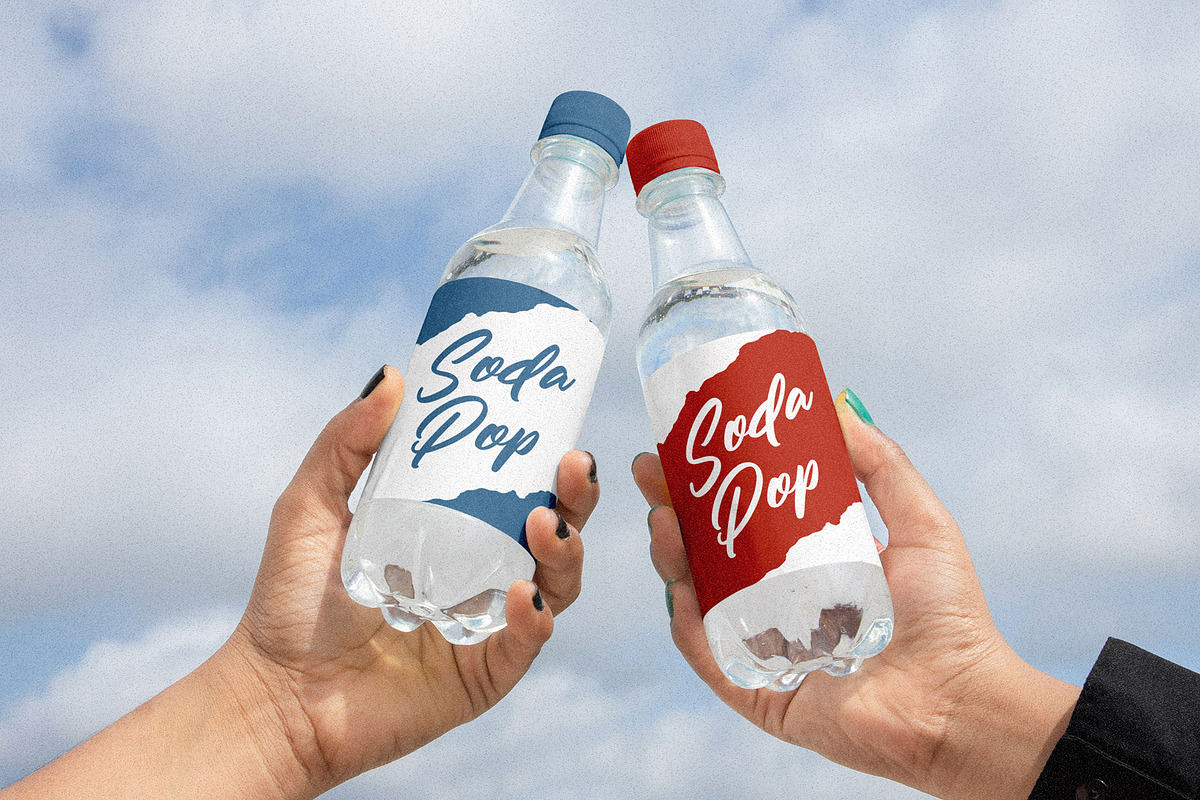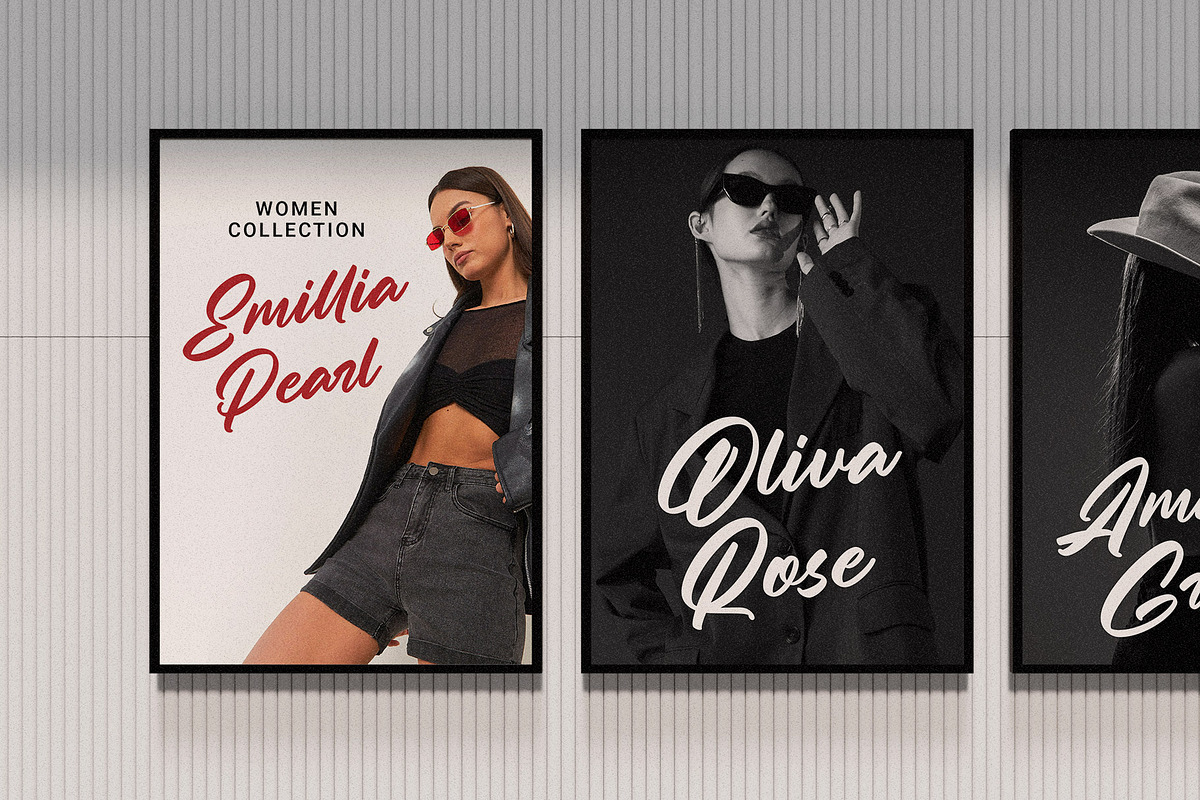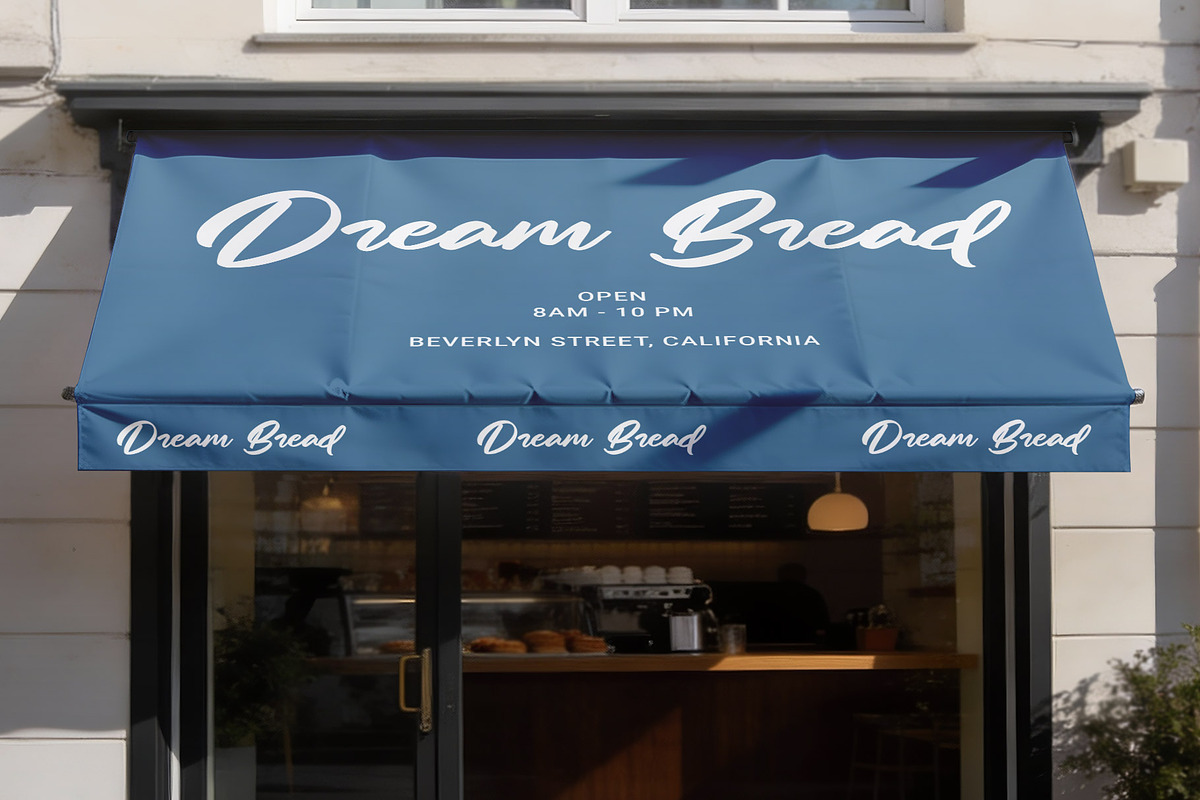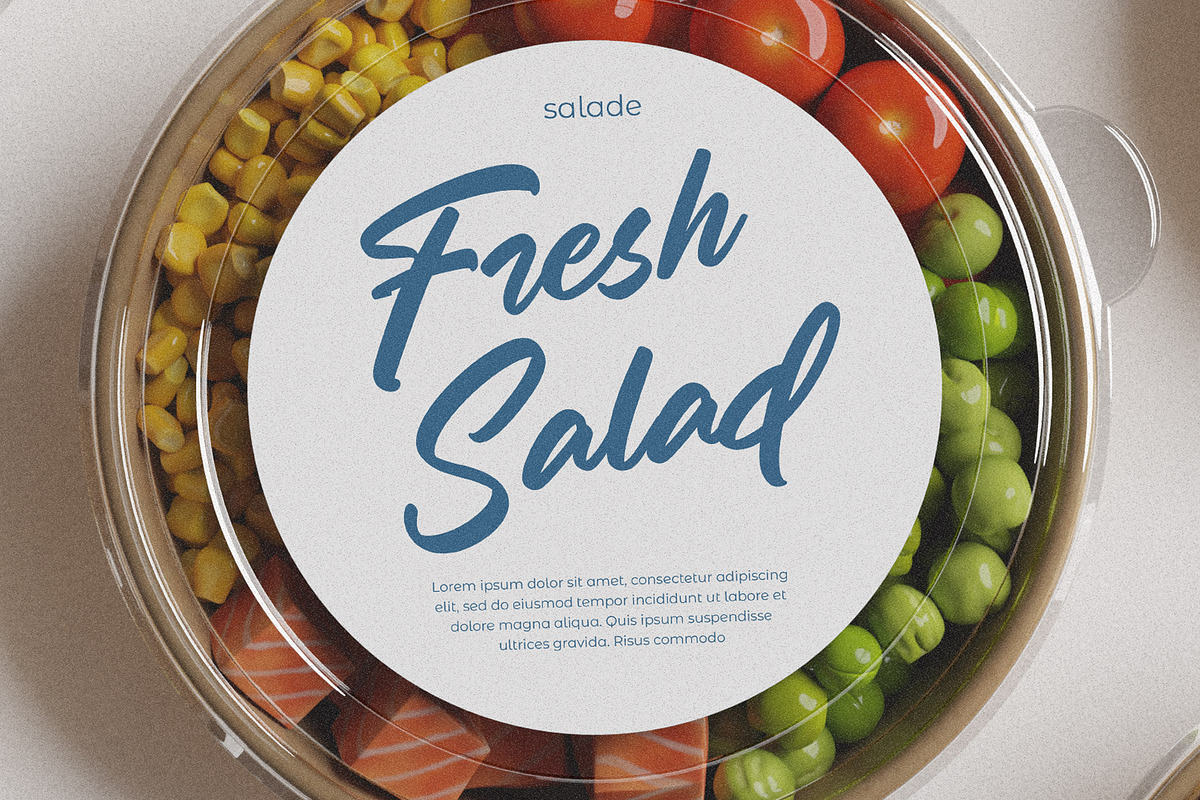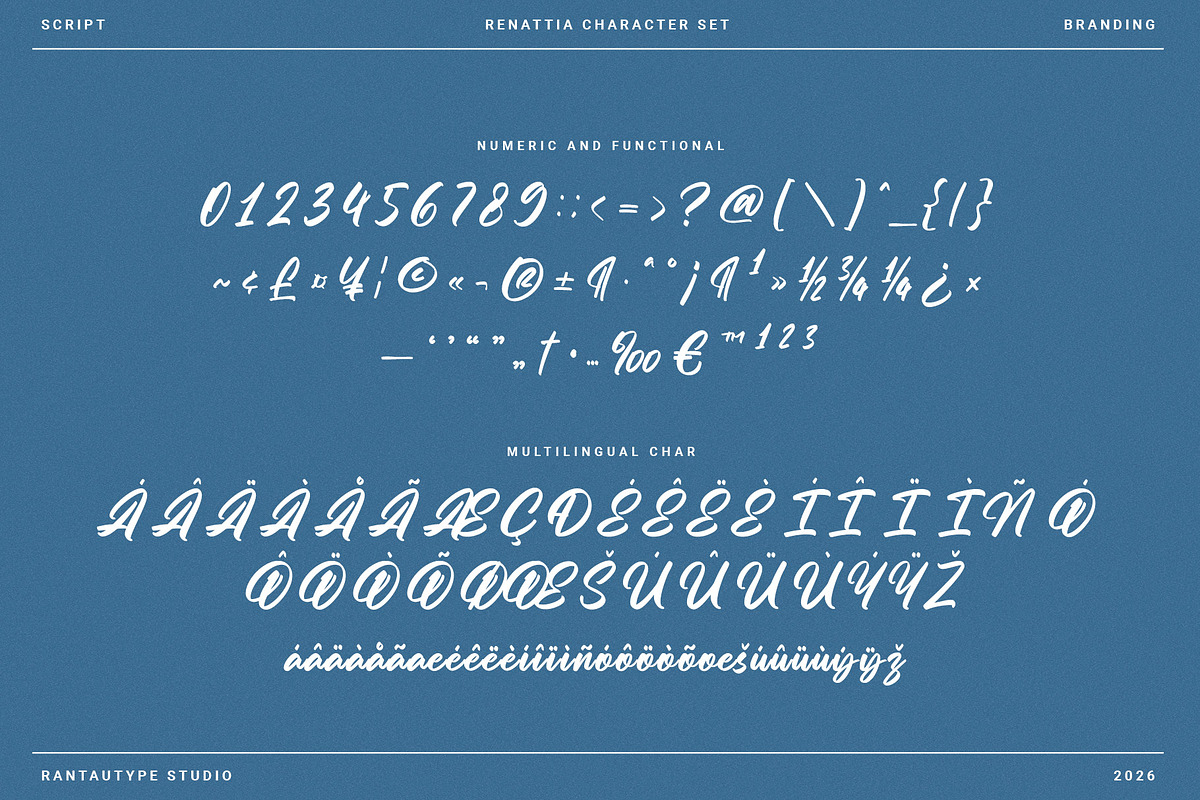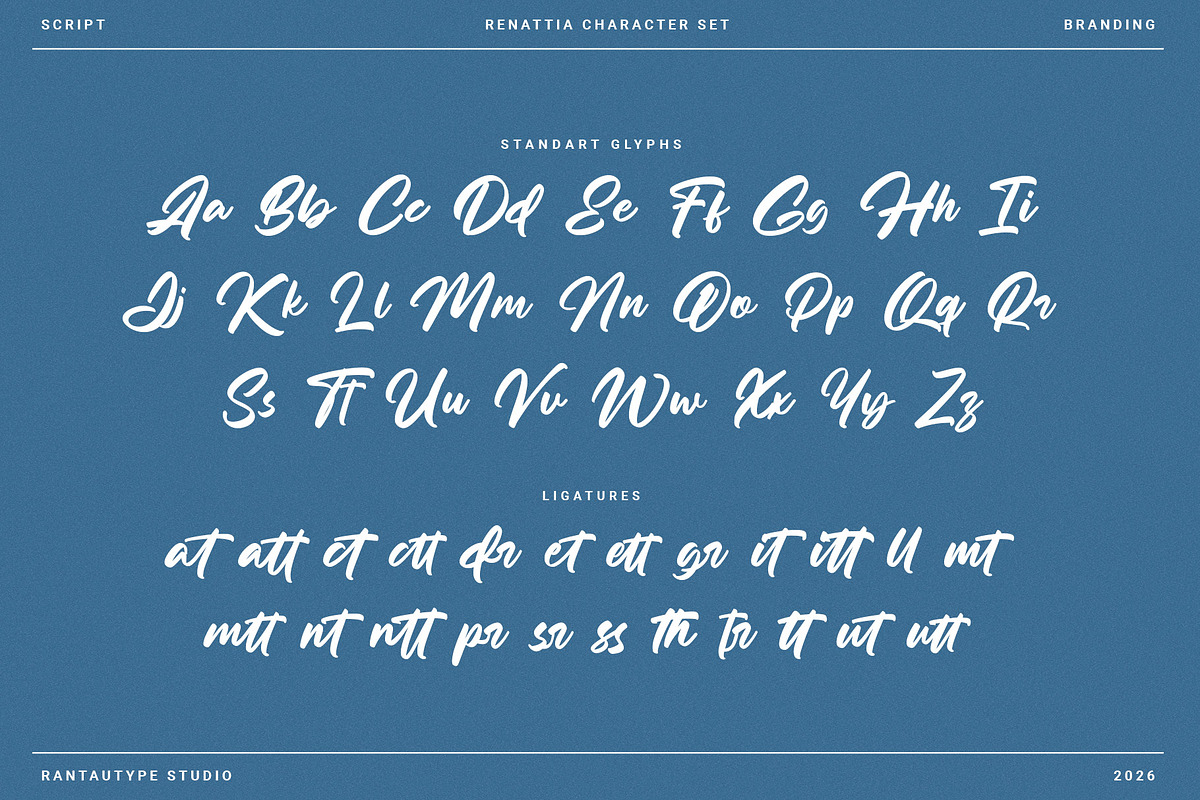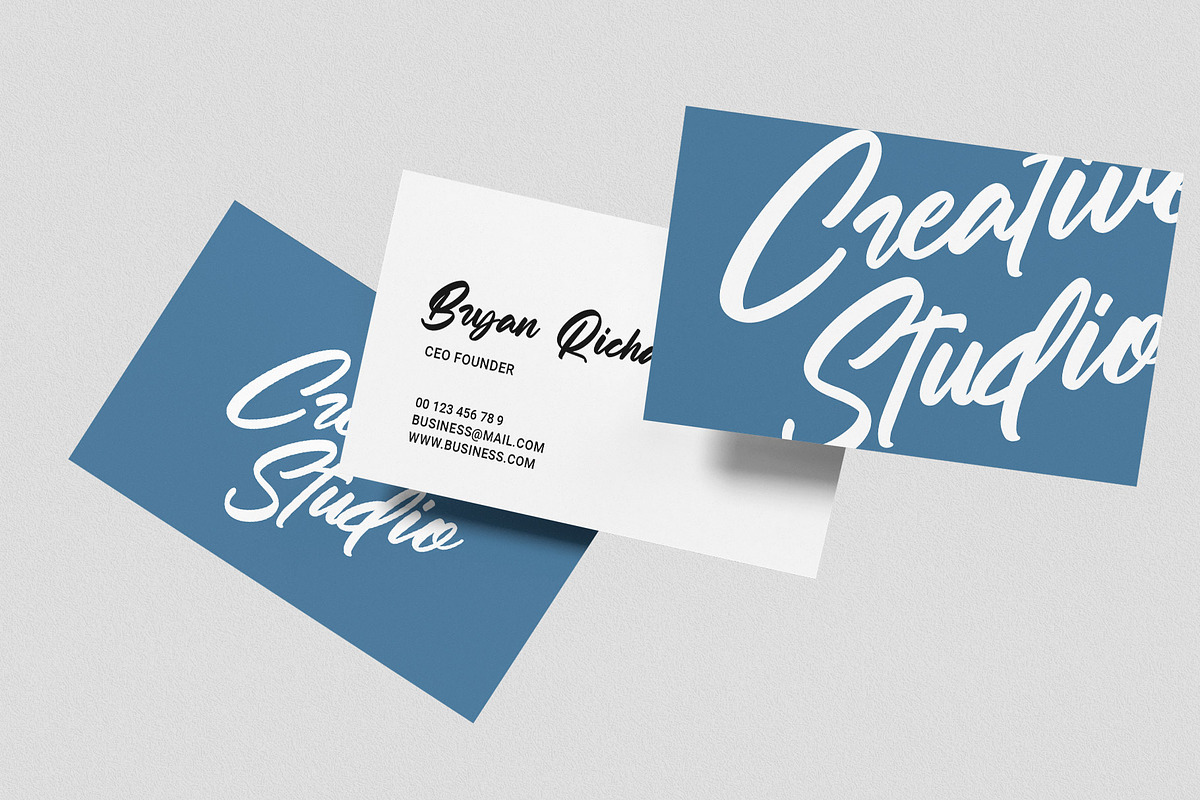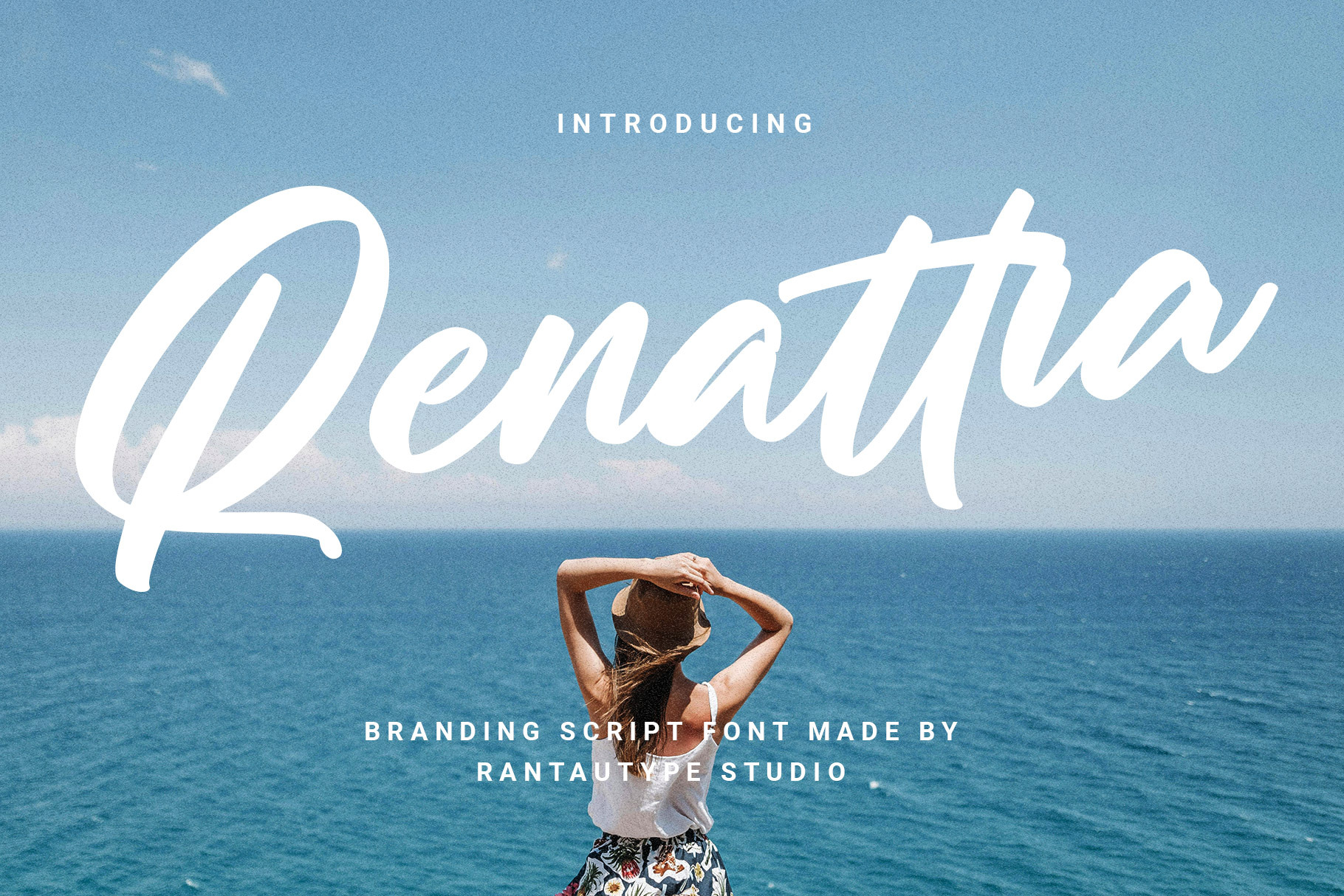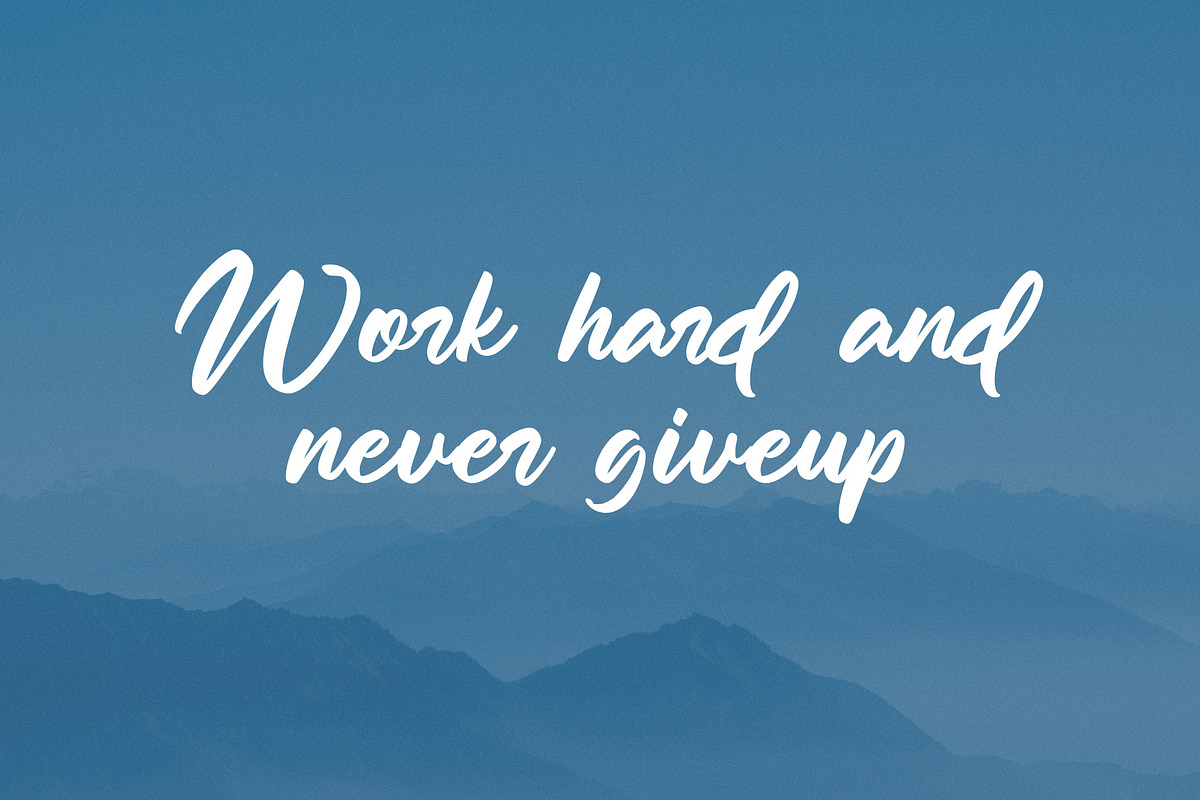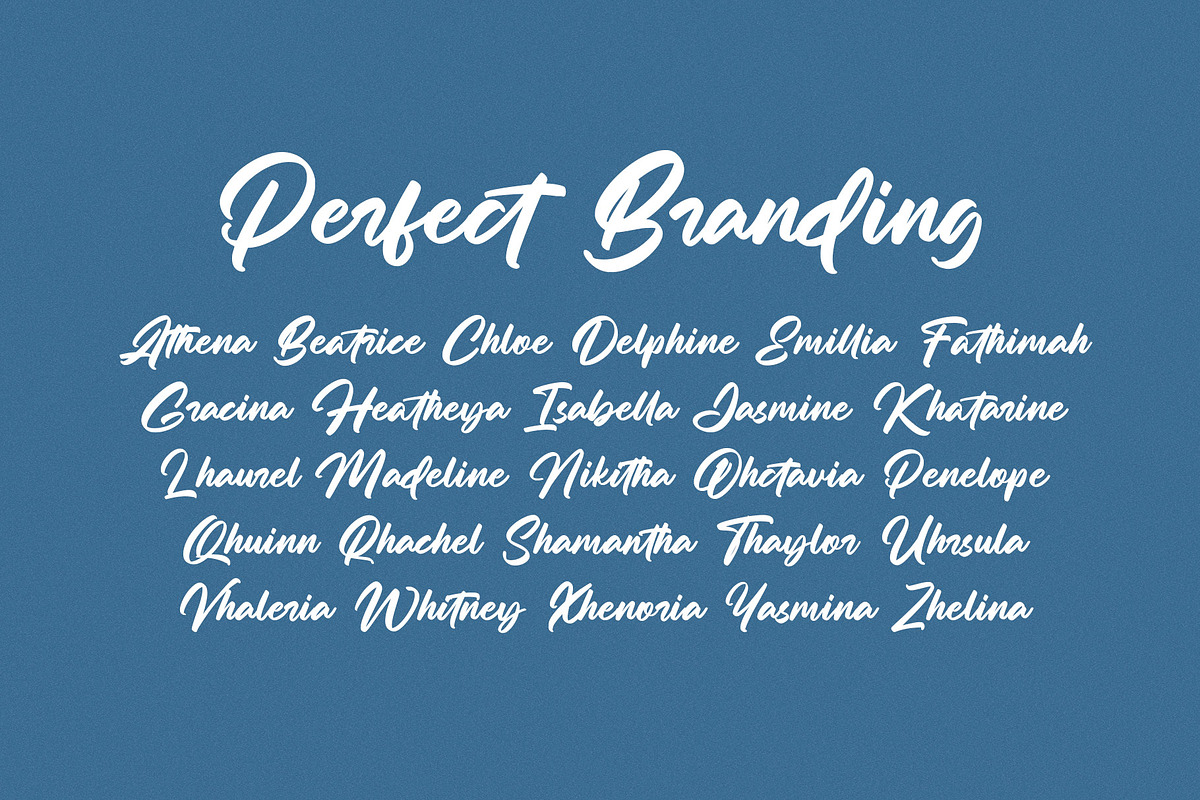
Renattia Branding Script Font
Renattia more than just beautiful font, it creates personality, emotion, and a memorable visual identity. Inspired by natural handwriting and calligraphy, script fonts bring a human touch to branding, making designs feel authentic, elegant, and approachable. Their flowing strokes and connected characters help convey a sense of creativity and sophistication that many modern brands seek when building a strong visual presence.
Renattia come with confident and strong brush character. Harca is a perfectly choice for any creative endeavor, creating, modern, lifestyle design such as logotype, title, cover, branding, invitations, wedding designs, display and magazine, social media posts, advertisements, printed quotes, product packaging, corporate brand, product designs, labels, photography, watermarks, special events and any other project with modern touch.
Alternate and ligature